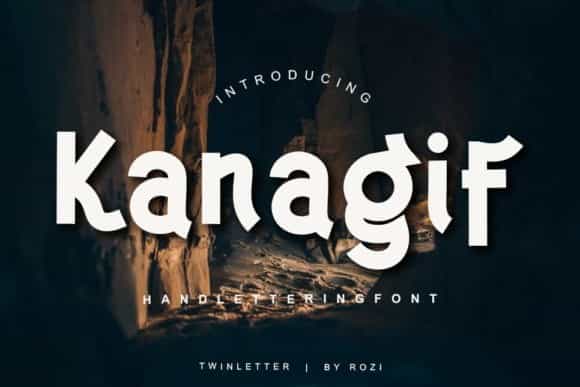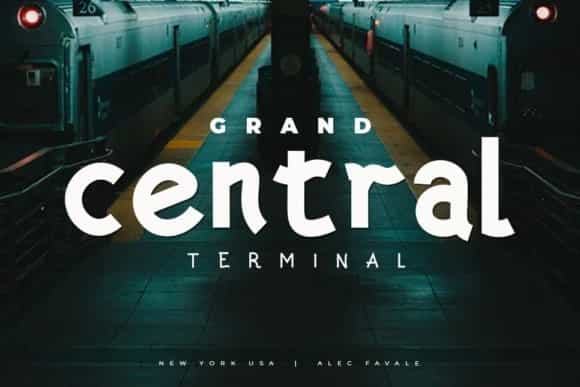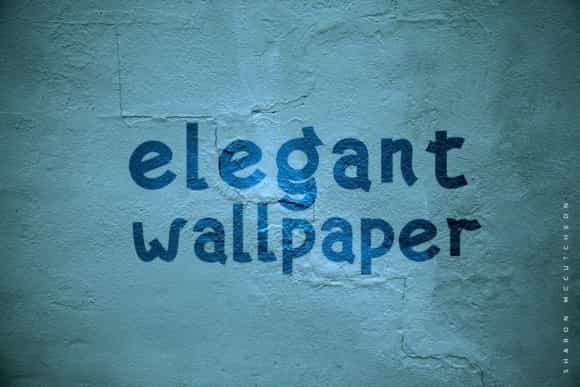
Kanagif is a strong sans serif font which was made hands on to be the one that you will use for all your projects. Kanagif is the right font for creating unique and great designs. Kanagif will be a perfect fit for your poster, Blog, Website, t-shirt and other interesting projects you are working on.